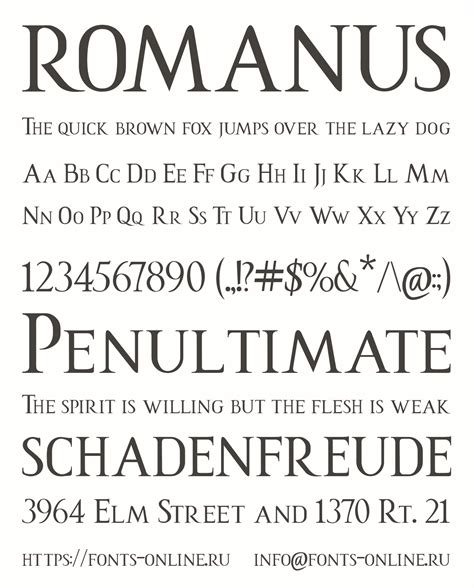
Typography is a crucial aspect of design, and choosing the right font combinations can significantly enhance the visual appeal and readability of your projects. One font that stands out for its elegance and versatility is the Romanus font. Romanus font combinations can elevate your design projects, whether you're working on a website, a print publication, or any other creative endeavor. This post will delve into the intricacies of Romanus font combinations, providing insights and practical tips to help you make the most of this timeless typeface.
Understanding the Romanus Font
The Romanus font is known for its classic and sophisticated appearance, drawing inspiration from traditional Roman lettering. Its clean lines and balanced proportions make it a versatile choice for a wide range of applications. Whether you’re designing a formal document, a branding project, or a digital interface, Romanus can add a touch of elegance and professionalism.
Key Features of Romanus Font
Before diving into Romanus font combinations, it’s essential to understand the key features that make this font unique:
- Classic Design: Romanus is inspired by classical Roman lettering, giving it a timeless and elegant look.
- Versatility: The font’s clean lines and balanced proportions make it suitable for various design projects.
- Readability: Romanus is highly readable, making it an excellent choice for body text as well as headings.
- Legibility: The font’s clear and distinct letterforms ensure that it remains legible even at smaller sizes.
Romanus Font Combinations for Headings and Body Text
One of the most effective ways to use Romanus is by pairing it with complementary fonts for headings and body text. This approach can create a harmonious and visually appealing design. Here are some Romanus font combinations to consider:
Romanus with Serif Fonts
Pairing Romanus with other serif fonts can create a cohesive and traditional look. Serif fonts have small decorative strokes at the ends of letters, which complement the classic design of Romanus. Some popular serif fonts to pair with Romanus include:
- Garamond: This classic serif font has a timeless elegance that pairs well with Romanus.
- Times New Roman: A widely used serif font that offers a traditional and formal appearance.
- Bodoni: Known for its high contrast and elegant design, Bodoni complements Romanus beautifully.
Romanus with Sans-Serif Fonts
For a more modern and clean look, consider pairing Romanus with sans-serif fonts. Sans-serif fonts lack the decorative strokes found in serif fonts, creating a contemporary contrast. Some sans-serif fonts that work well with Romanus include:
- Helvetica: A classic sans-serif font known for its simplicity and versatility.
- Arial: A widely used sans-serif font that offers a clean and modern appearance.
- Futura: This geometric sans-serif font provides a striking contrast to the classic design of Romanus.
Romanus with Script Fonts
For a more playful and creative look, you can pair Romanus with script fonts. Script fonts mimic handwriting and can add a personal touch to your design. Some script fonts that complement Romanus include:
- Pacifico: A fun and playful script font that adds a casual touch to Romanus.
- Great Vibes: This elegant script font pairs well with Romanus for a sophisticated and romantic look.
- Allura: A delicate and feminine script font that complements Romanus beautifully.
Romanus Font Combinations for Branding
When it comes to branding, choosing the right font combinations is crucial for creating a strong and cohesive visual identity. Romanus font combinations can help you achieve a professional and elegant look for your brand. Here are some tips for using Romanus in branding:
Logo Design
Romanus can be an excellent choice for logo design, especially for brands that want to convey a sense of tradition and elegance. Pairing Romanus with a complementary font can create a unique and memorable logo. For example, you can use Romanus for the main text and a script font for the tagline to add a personal touch.
Branding Materials
Consistency is key in branding, and using Romanus font combinations across your branding materials can help create a cohesive look. Whether you’re designing business cards, letterheads, or brochures, Romanus can add a touch of elegance and professionalism. Pair Romanus with a complementary font for headings and body text to ensure readability and visual appeal.
Romanus Font Combinations for Web Design
In web design, choosing the right font combinations can significantly enhance the user experience and visual appeal of your website. Romanus font combinations can help you create a clean and elegant design that is easy to read and navigate. Here are some tips for using Romanus in web design:
Headings and Subheadings
Romanus is an excellent choice for headings and subheadings, as its clean lines and balanced proportions make it highly readable. Pair Romanus with a complementary font for body text to create a harmonious and visually appealing design. For example, you can use Romanus for headings and a sans-serif font like Helvetica for body text.
Romanus font combinations offer a versatile and elegant solution for a wide range of design projects. Whether you’re working on a website, a print publication, or a digital interface, Romanus can add a touch of classic elegance and professionalism. By understanding the key features of Romanus and pairing it with complementary fonts, you can create a harmonious and visually appealing design that stands out. From branding materials to web design, Romanus font combinations can help you achieve a cohesive and elegant look that enhances the overall user experience.